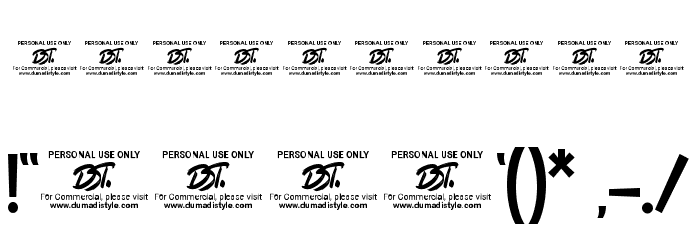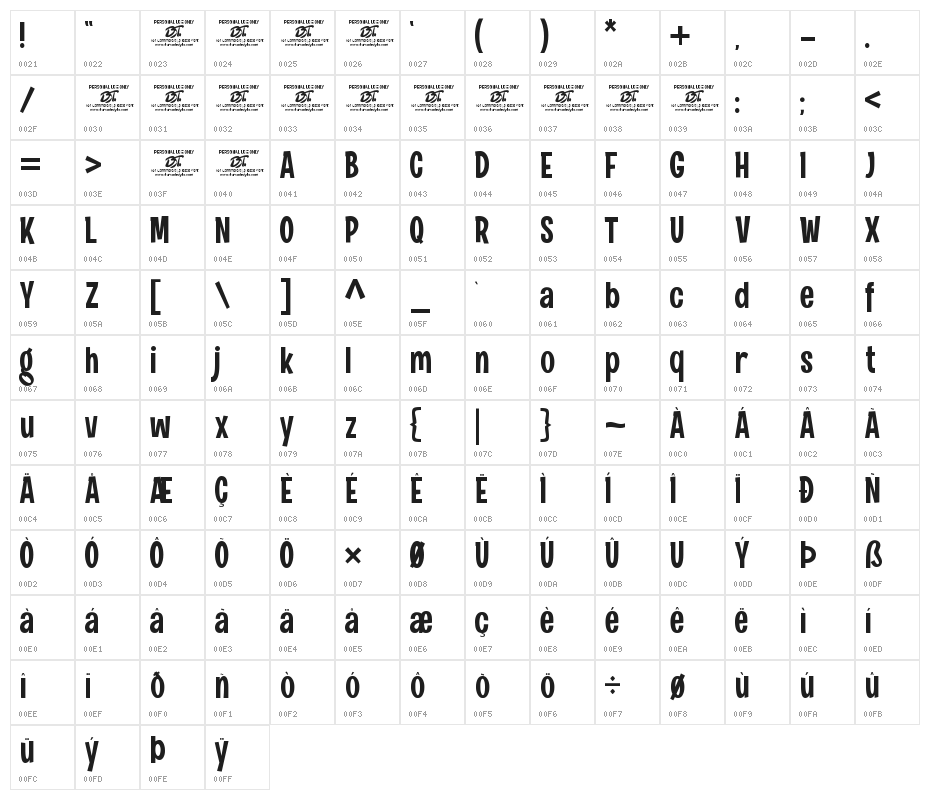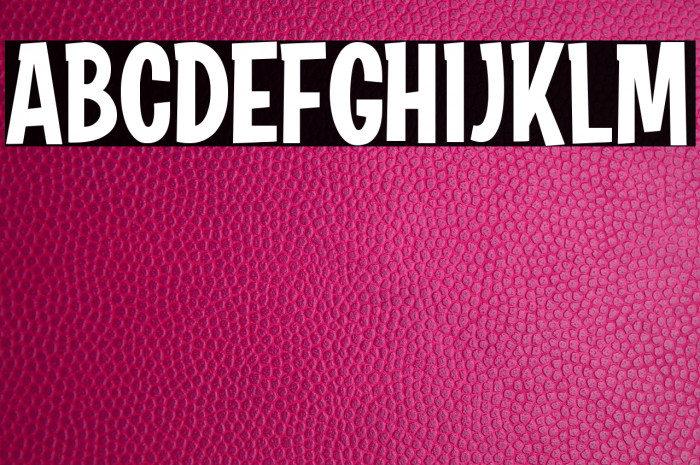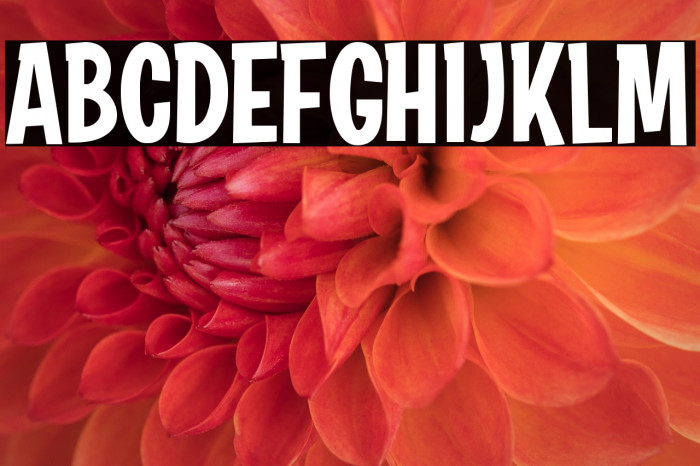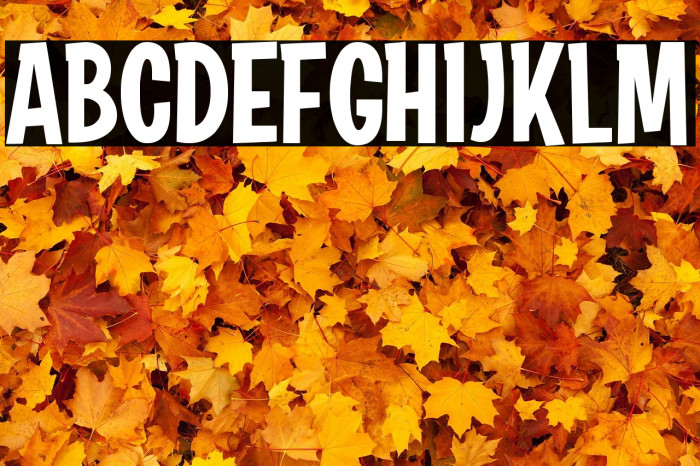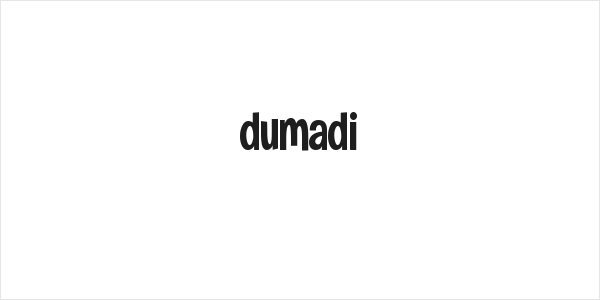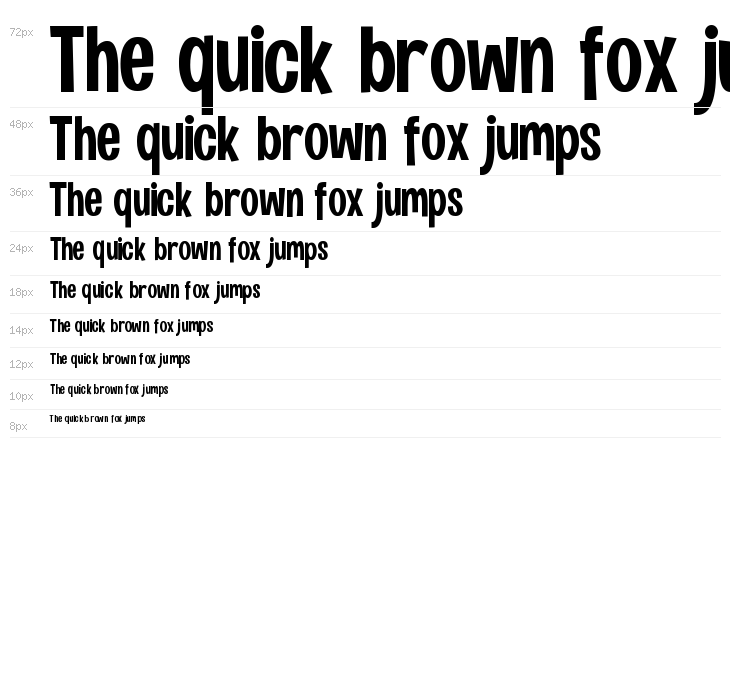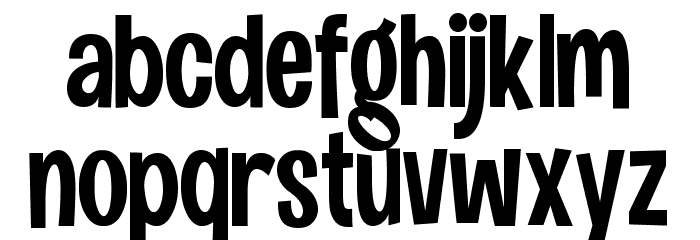
dumadi Font
dumadi Description
This font features bold, thick strokes with a playful and slightly quirky style. The uppercase letters are tall and narrow, giving a condensed appearance, while the lowercase letters maintain a consistent height and width, creating a balanced look. The font has a strong presence, making it ideal for attention-grabbing designs. The characters are well-spaced, ensuring readability, and the overall design has a modern yet whimsical feel. The special characters are designed to match the boldness of the alphabet, adding to the font's cohesive style.
| Overall Style | Modern, Playful |
| Proposed Projects | Ideal for posters, headlines, branding projects, and playful graphic designs. |